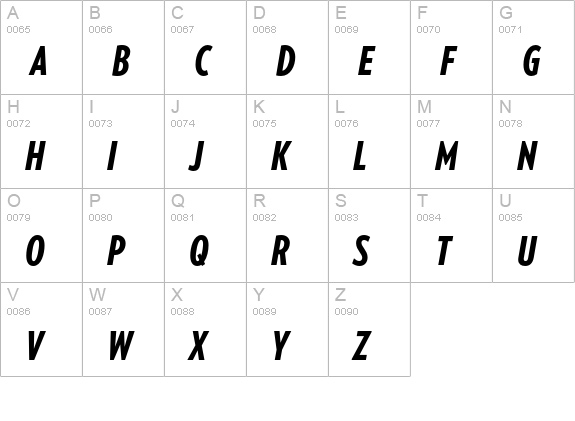
Verlag Compressed Black Italic Font Details
Verlag Compressed Black Italic is a maximum-weight, dramatic, condensed-width, italic variant in the Verlag typeface family \xE2\x80\x94 well suited to maximum-impact headlines, posters, and packaging.
Verlag Compressed Black Italic font is a sleek and sophisticated typeface that exudes modernity and elegance. Its bold and italicized design makes a powerful statement, perfect for adding a touch of drama to any project. The compressed letterforms give a sense of efficiency and space-saving, making it ideal for headlines, titles, and branding materials. The Verlag Compressed Black Italic font is not only visually striking but also versatile, suitable for a wide range of design applications. Whether you're looking to create eye-catching posters, striking advertisements, or stylish invitations, this font is sure to make a lasting impression. Best of all, Verlag Compressed Black Italic font is available for free download at FontsMarket.com. This means you can elevate your design projects without breaking the bank. Don't miss out on the opportunity to add this stunning font to your collection and take your designs to the next level.